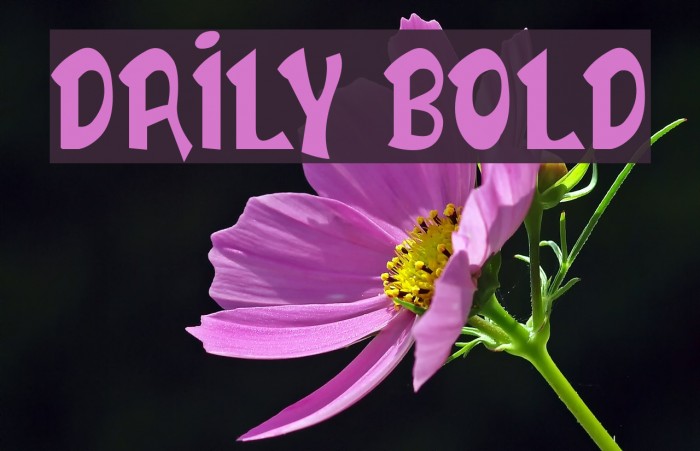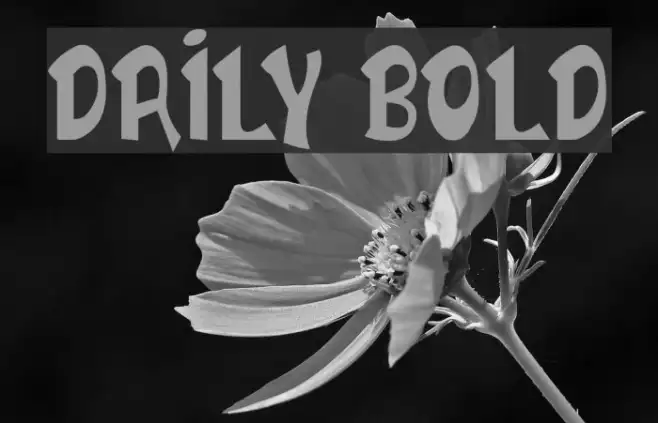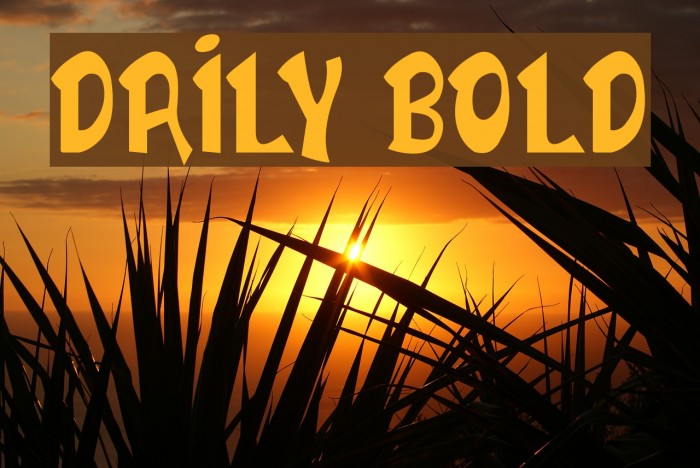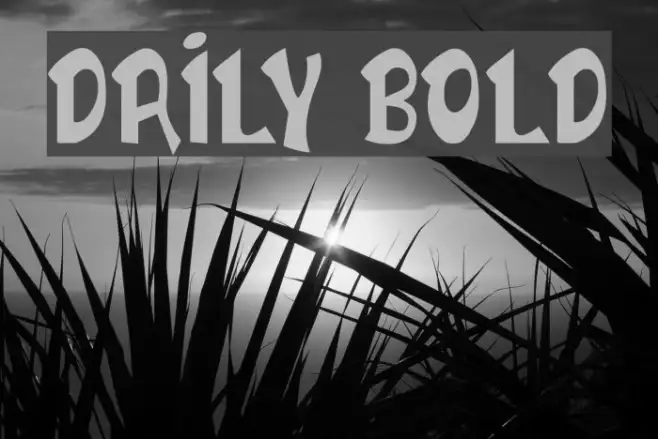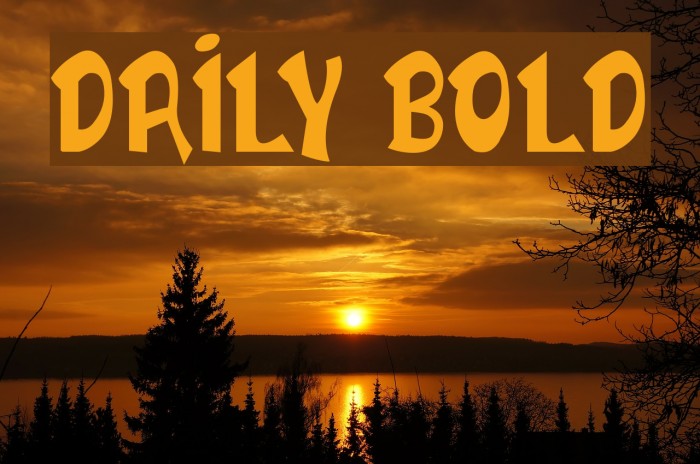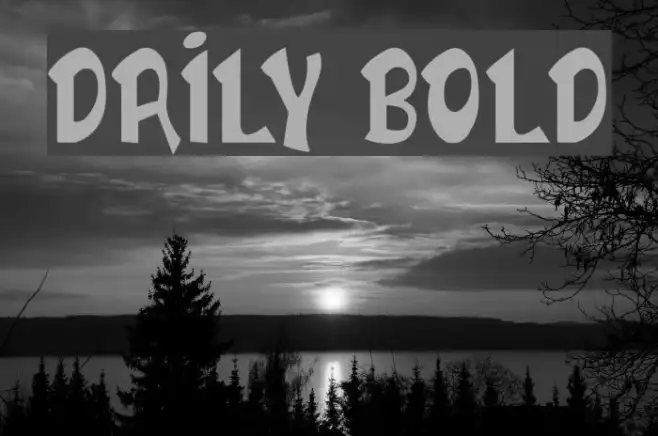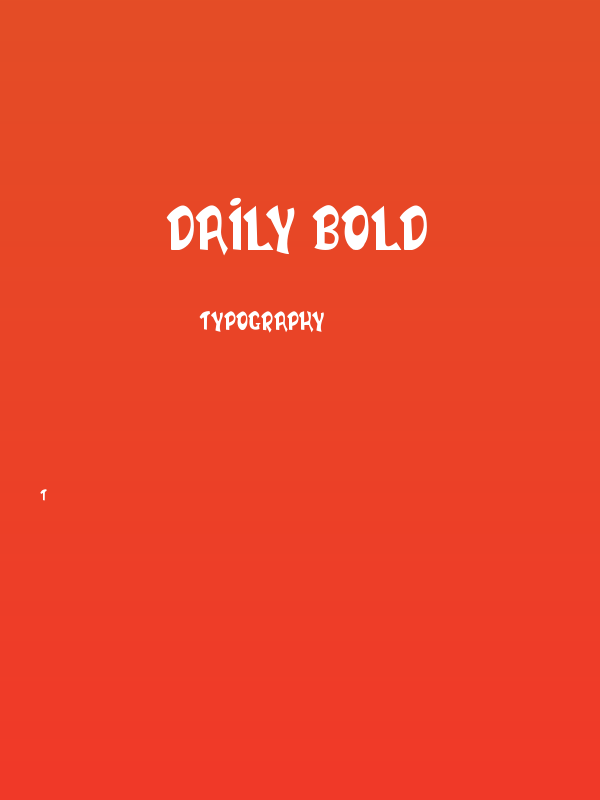
This font features a bold and striking design with a gothic influence, characterized by sharp, angular edges and a strong presence. The uppercase letters exhibit a unique blend of traditional blackletter elements with a modern twist, making them highly distinctive. The strokes are thick and consistent, providing a sense of weight and authority. The overall appearance is both decorative and impactful, suitable for making a statement in any design. The font's style is reminiscent of medieval scripts but with a contemporary flair, making it versatile for various creative applications.